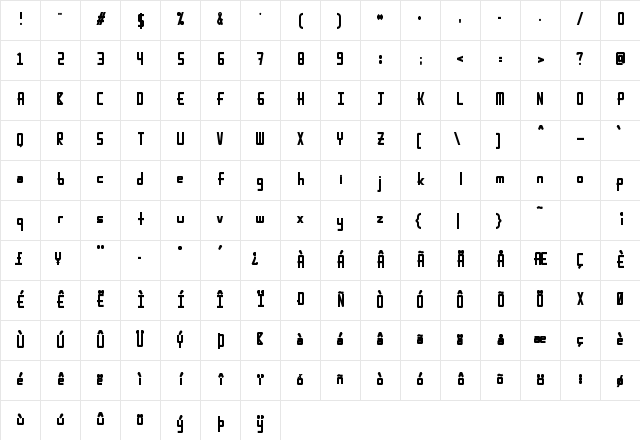
Karpow Bold Free Font
Karpow Bold
Foundry: xerographer.com
Designer: Max Infeld
Karpow Family
Design Context for Karpow
Karpow is a composed and adaptable typeface that performs quietly and consistently across a wide range of design contexts. Its bold stroke weight gives it real presence on the page.